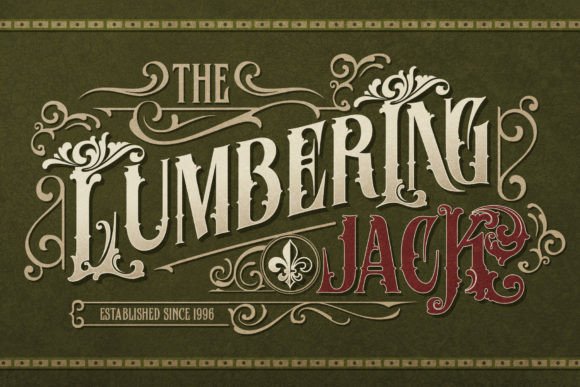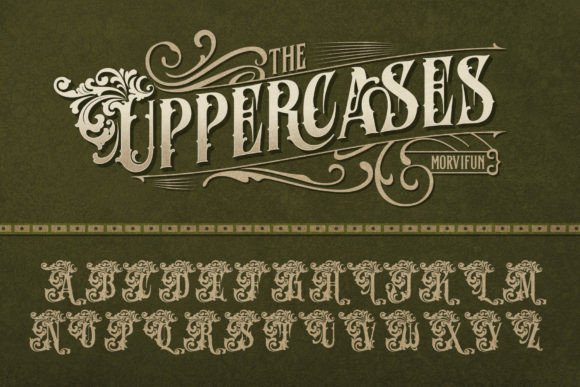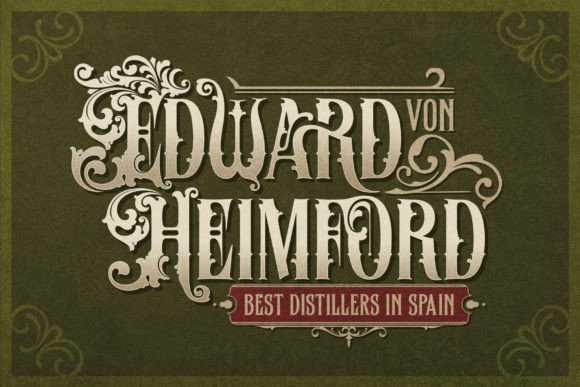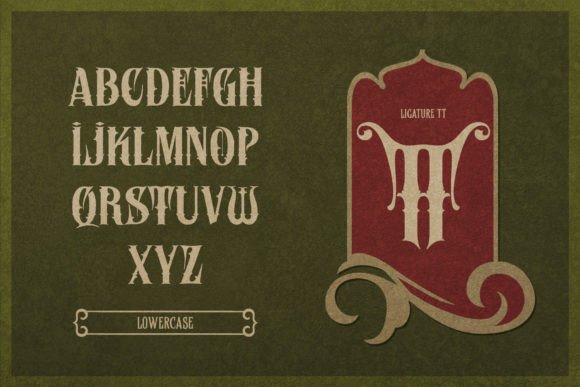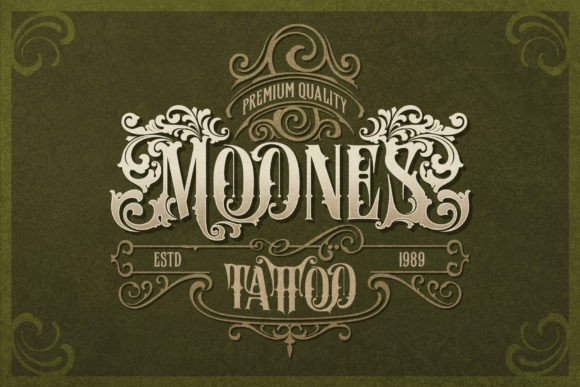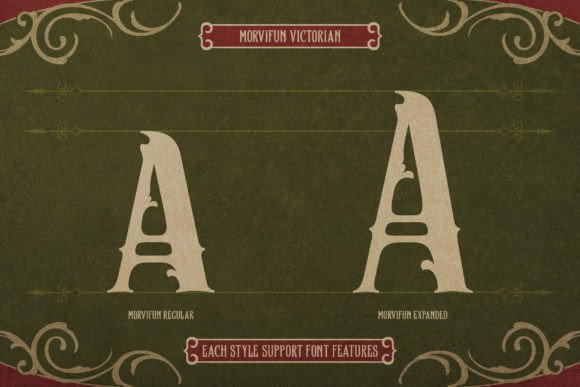
Introduction to Morvifun Font
Introducing “Morvifun” – a captivating font that combines the elegance of Victorian aesthetics with ornamental details.
This classic serif typeface showcases the timeless charm of Gothic styles, resulting in a visually stunning and versatile product The Morvifun font’s classic serif style adds a touch of sophistication and refinement to any project.